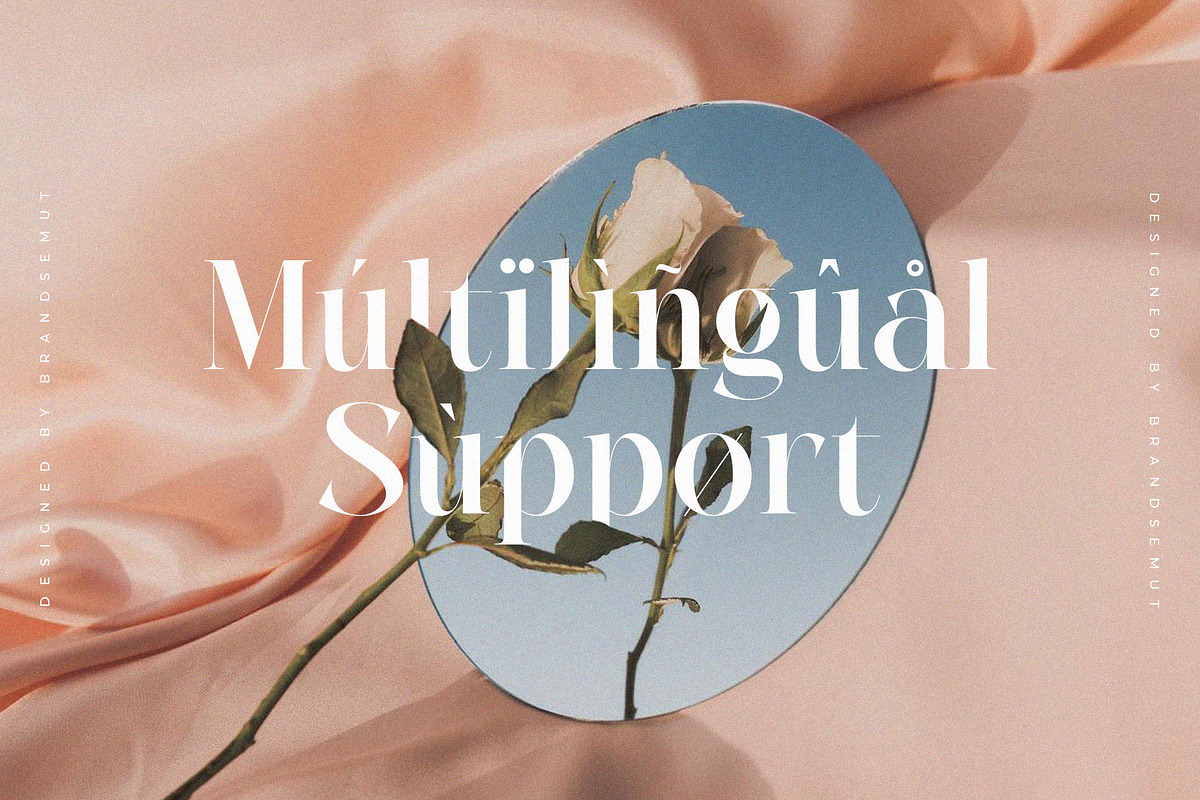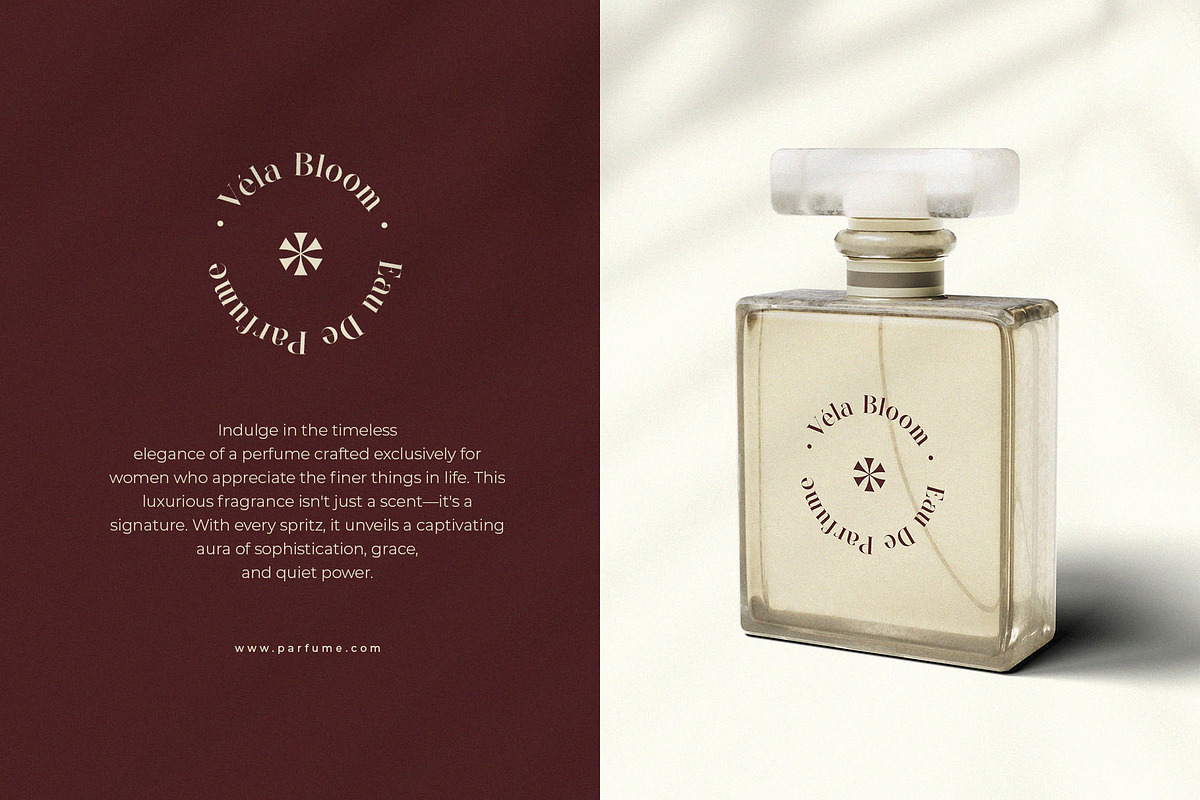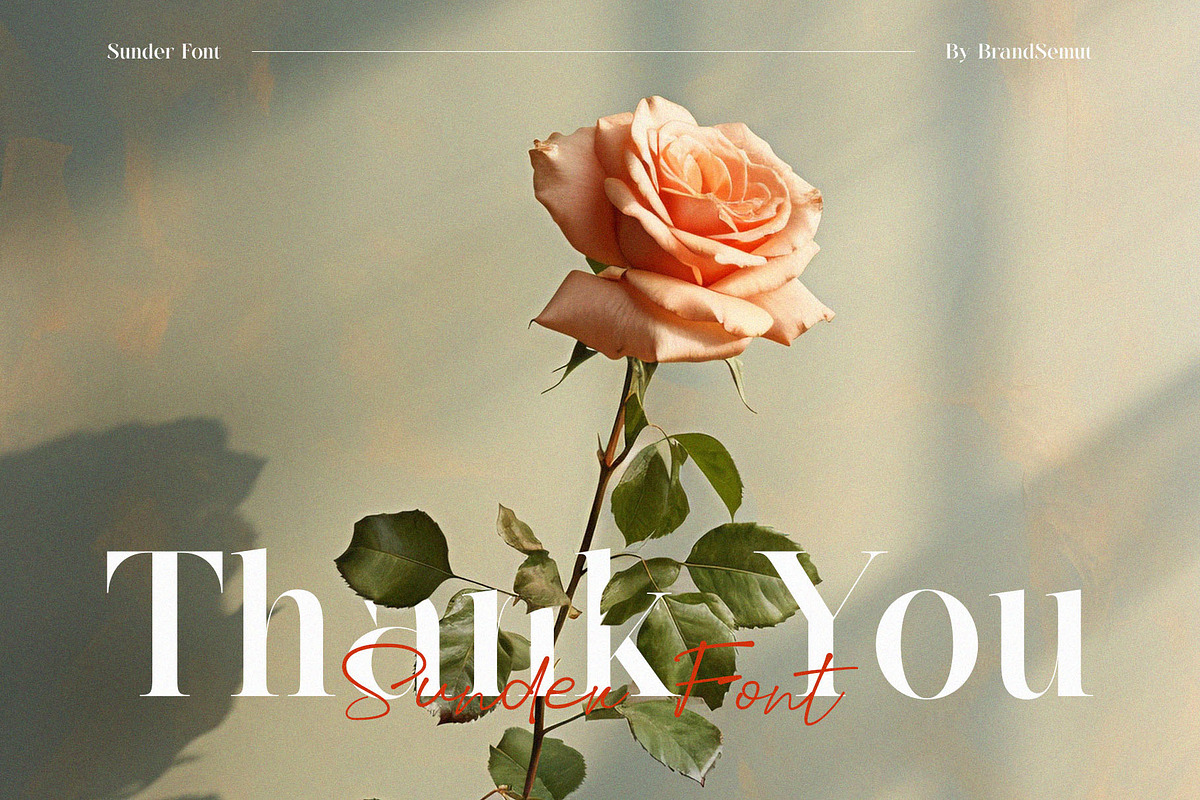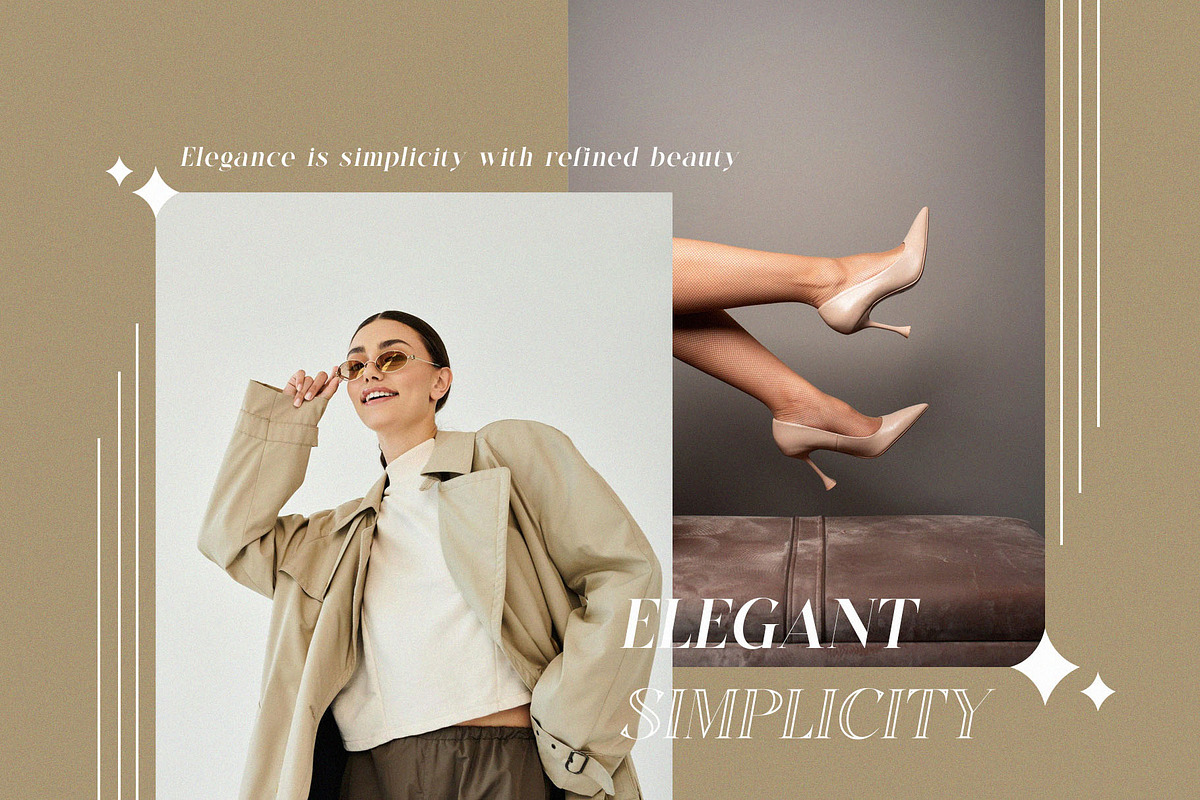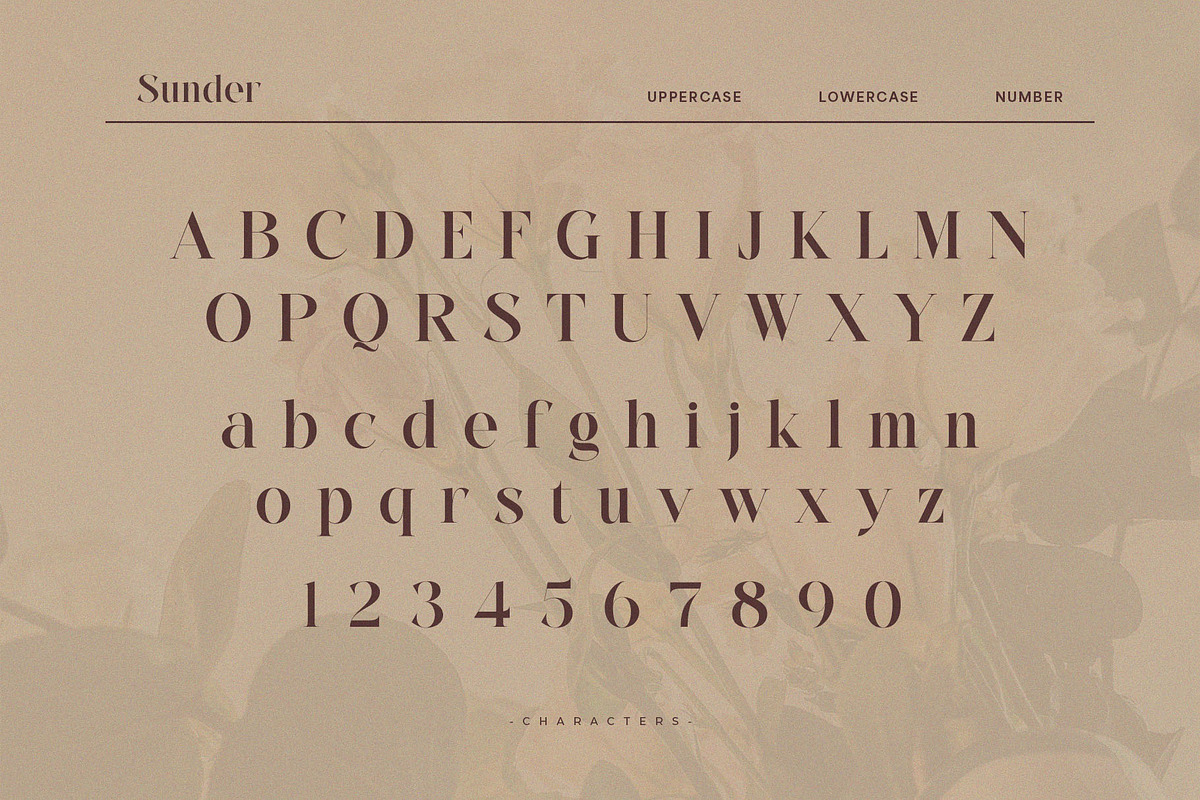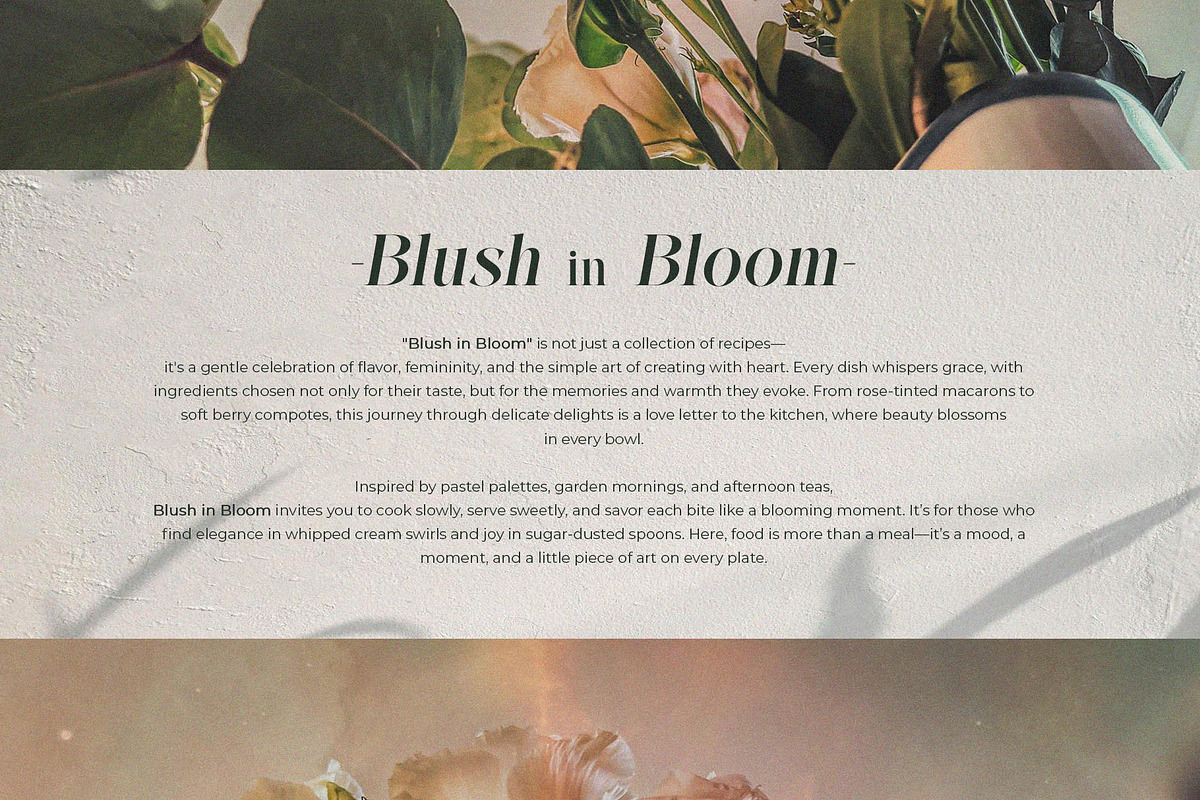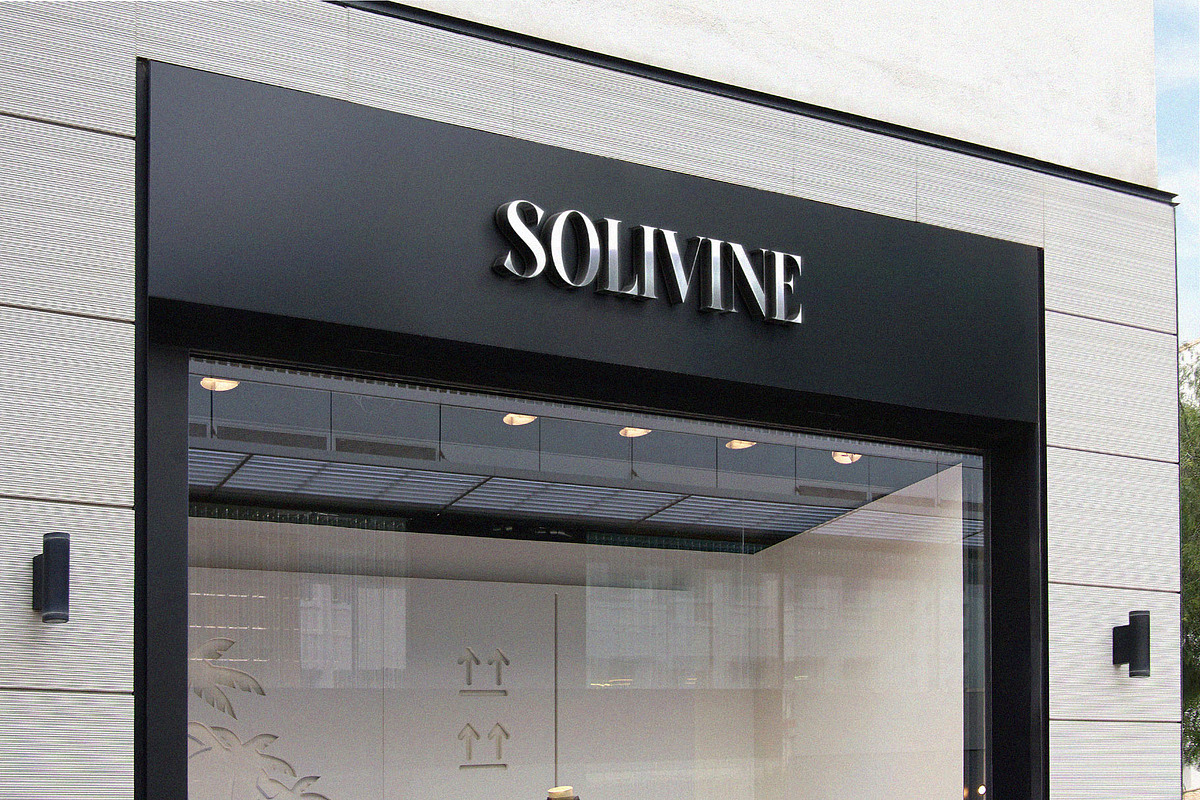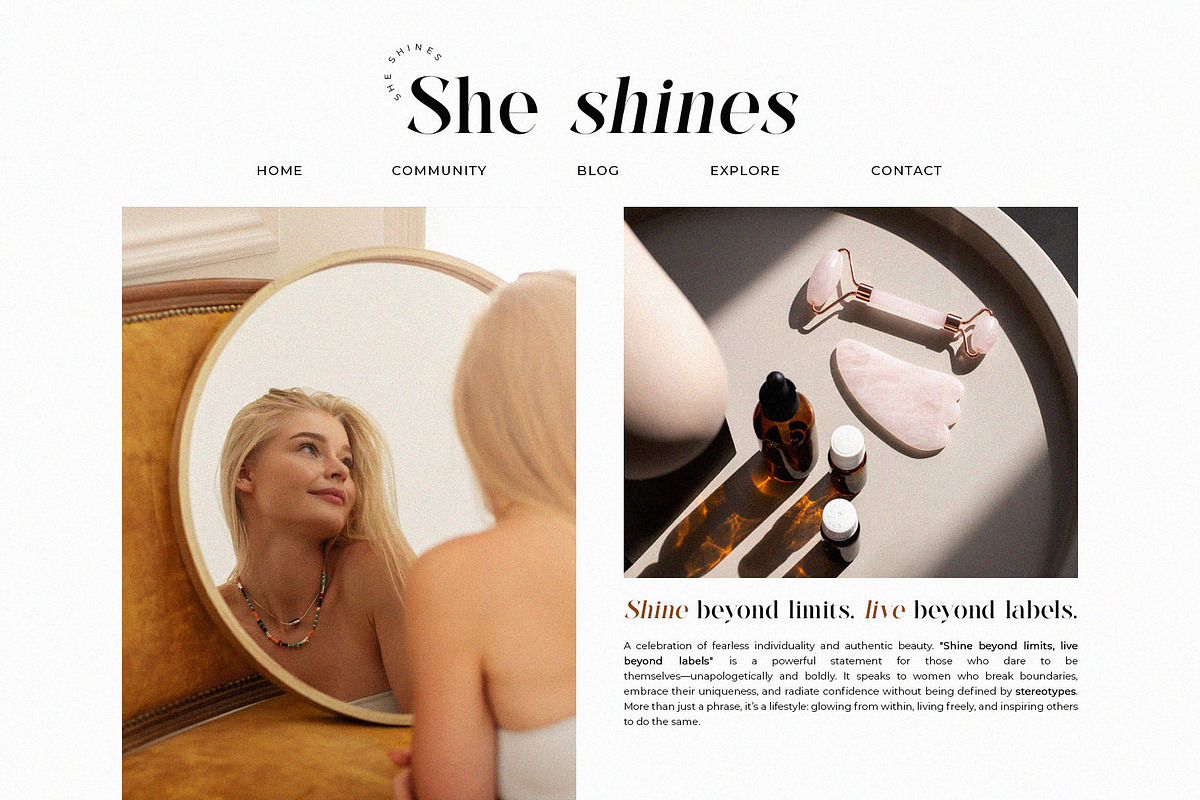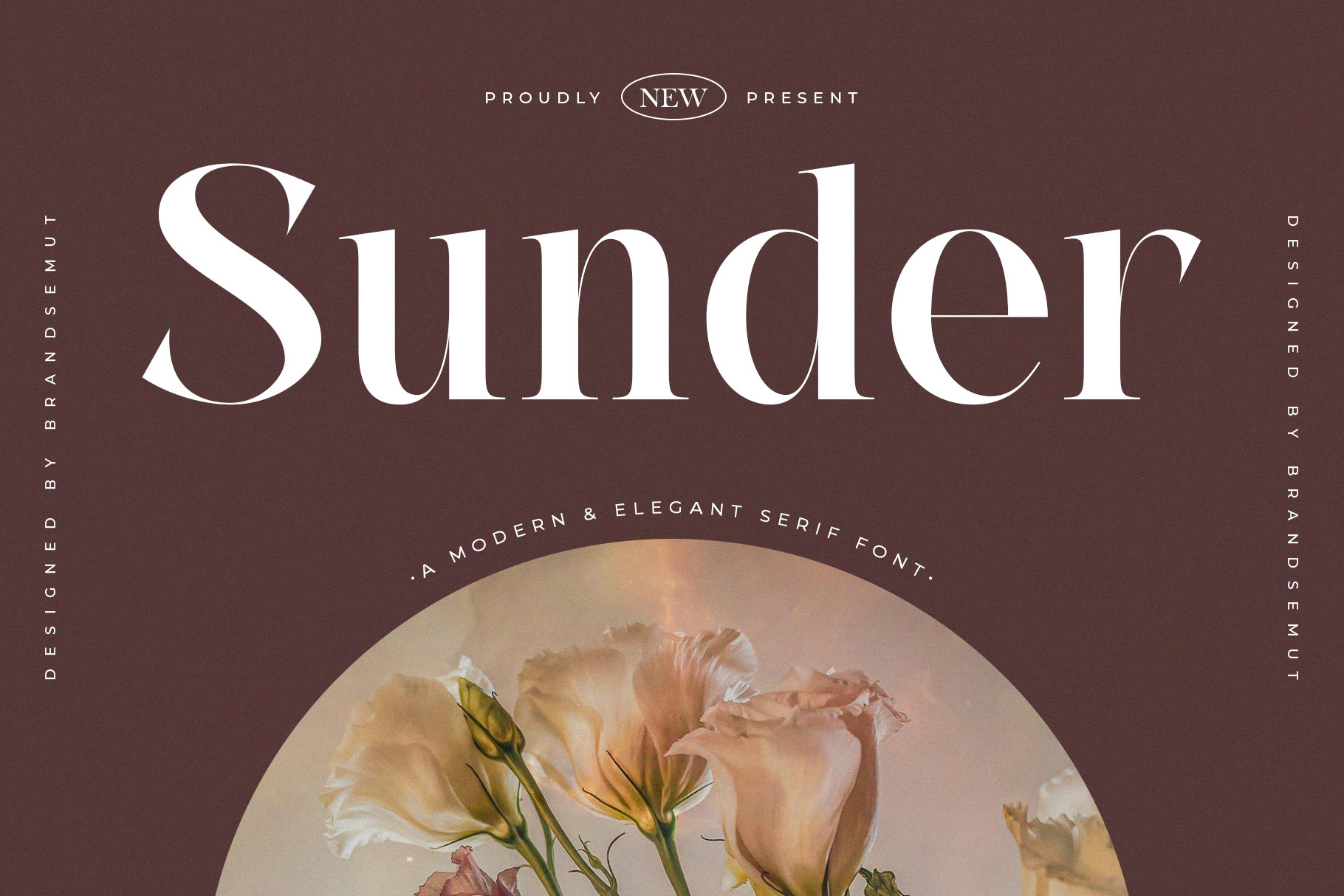
Sunder – Modern Elegant Serif Font
Sunder – Modern Elegant Serif Font with Uppercase & Lowercase for Luxury Branding & Editorial Design
Sunder is a modern and elegant serif font designed to bring timeless sophistication to your creative projects. With a full set of uppercase and lowercase letters, Sunder features smooth curves, refined contrast, and graceful terminals — perfect for high-end branding, fashion editorials, wedding invitations, product packaging, and social media design.
Every character in Sunder is thoughtfully crafted to exude elegance and softness while maintaining modern structure and legibility. It's a versatile typeface that blends classic beauty with a contemporary edge.
- Luxury logos & brand identity
- Editorial headlines & magazine titles
- Wedding stationery & romantic visuals
- Feminine product packaging & cosmetics
- Instagram posts & lifestyle content
- Elegant high-contrast serif structure
- Stylish ligatures & smooth detailing
- Ideal for both print and digital use
Let Sunder elevate your typography with an effortlessly elegant presence that makes every word feel premium.